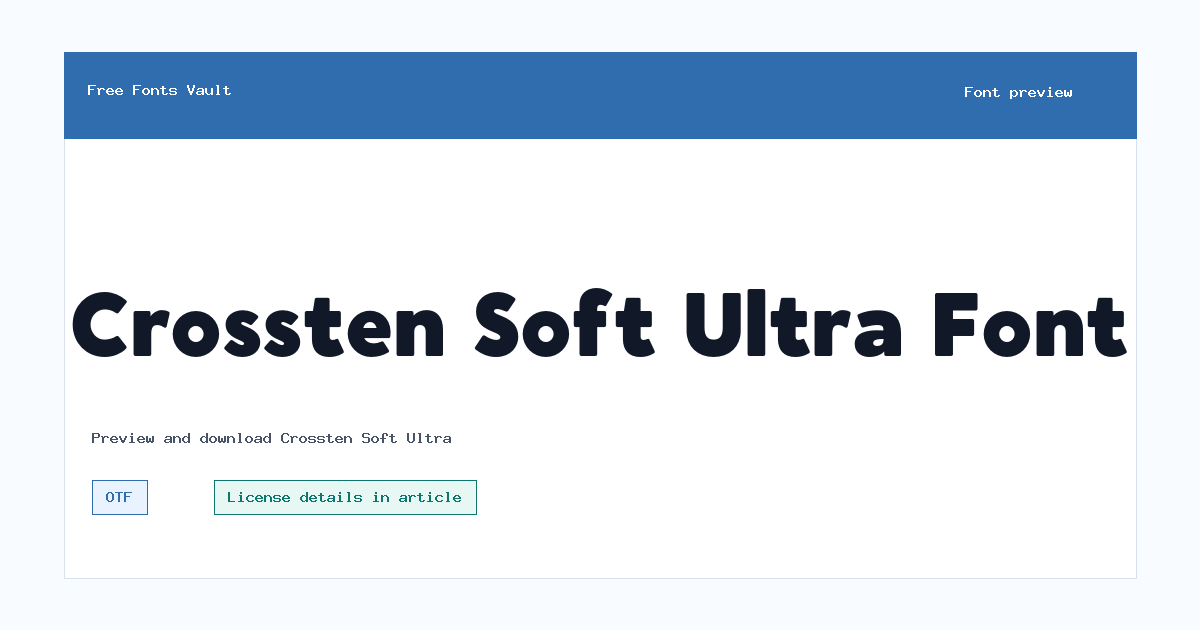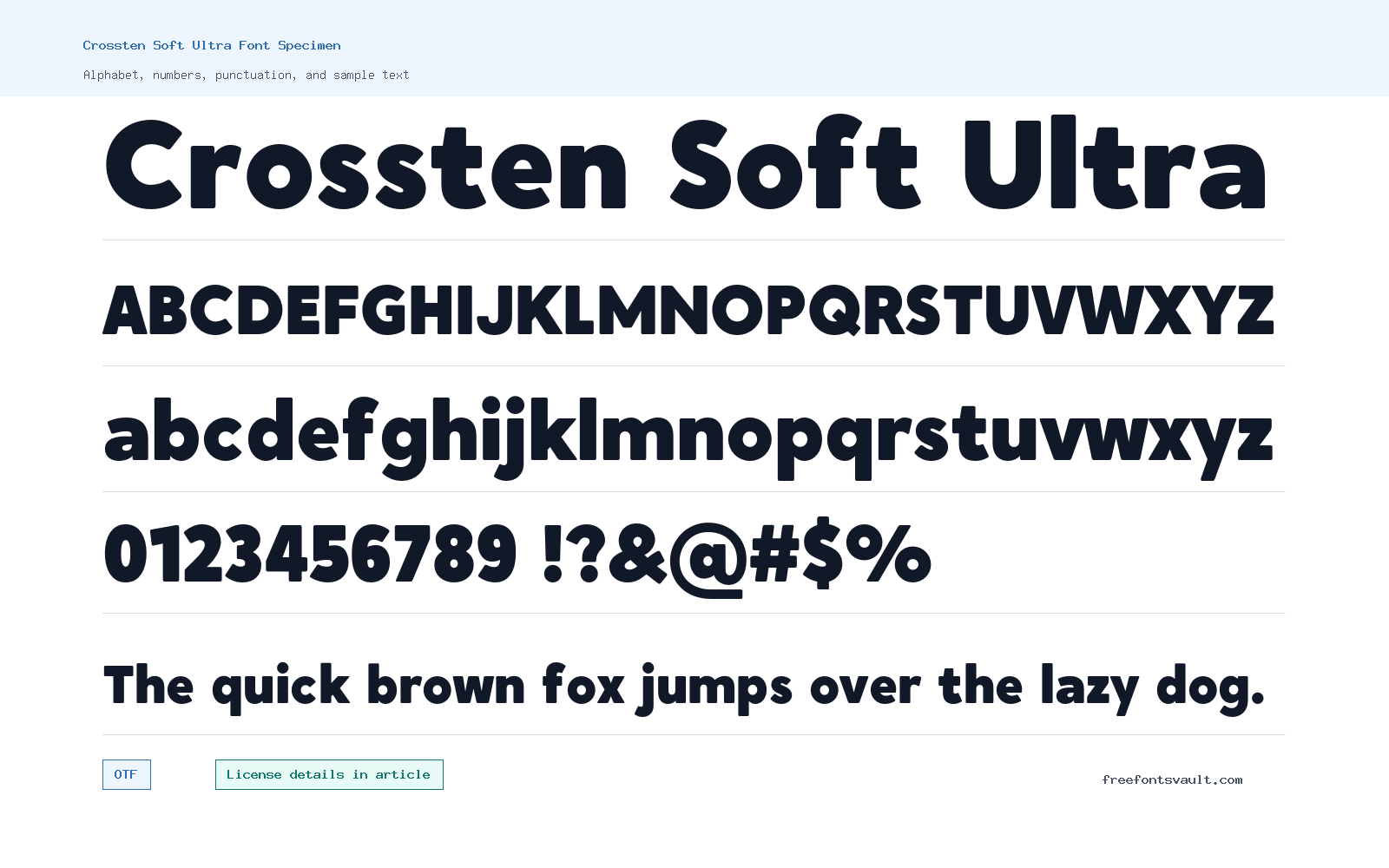
Crossten Soft Ultra
Crossten Soft Ultra font preview showing the family name
Crossten Soft Ultra Font
Crossten Soft Ultra font specimen showing alphabet, numbers, and sample text
• Designer Emre Guven
• Foundry Emre Güven
Crossten Soft Ultra font.
Crossten Soft Ultra is a heavy rounded geometric sans with a soft, even rhythm. It works best when you want bold text that feels clean, friendly, and modern rather than sharp or formal.
About Crossten Soft Ultra
Crossten Soft belongs to the Crossten Soft family by Emre Güven. The wider family is described in a commercial listing as a geometric sans with a soft, single-spaced aesthetic, and the Soft family includes 20 styles. The Ultra cut is the strongest weight in that direction: rounded terminals, broad letter shapes, and a steady texture make it useful for display text where you want impact without a hard industrial edge.
Use Crossten Soft Ultra for large headings, app screens, dashboard mockups, cards, tech branding concepts, packaging tests, and short promotional lines. Because this is an ultra-heavy style, it is not the best choice for long paragraphs or small captions. In the preview, test uppercase words, numbers, buttons, and short UI labels. Watch spacing in tight layouts, especially around round letters and wide characters, and pair it with a lighter sans serif when you need readable body copy.
• Rounded geometric sans style with a heavy Ultra weight
• Soft, single-spaced visual rhythm suited to short display text
• Best at larger sizes where the rounded shapes and weight can breathe
• Large soft headings
• Friendly dashboard and app mockups
• Tech branding concepts
• Packaging and label drafts
• Cards, banners, and short promo text
• Bold UI buttons or numeric callouts
Crossten Soft is credited to designer and foundry Emre Güven.
Try Crossten Soft Ultra in short phrases first. It is strong enough for headlines and hero text, but its weight can close up at small sizes. For practical layouts, pair it with a lighter text face and keep line lengths short.
Who designed Crossten Soft Ultra?
Crossten Soft is credited to Emre Güven, who is also listed as the foundry.
What kind of font is Crossten Soft Ultra?
It is a rounded geometric sans in an ultra-heavy style, suited to large display text, headings, UI mockups, and short branding concepts.
Can I use Crossten Soft Ultra for body text?
It is better for short, large text. For paragraphs, use a lighter, more open sans serif and keep Crossten Soft Ultra for emphasis.